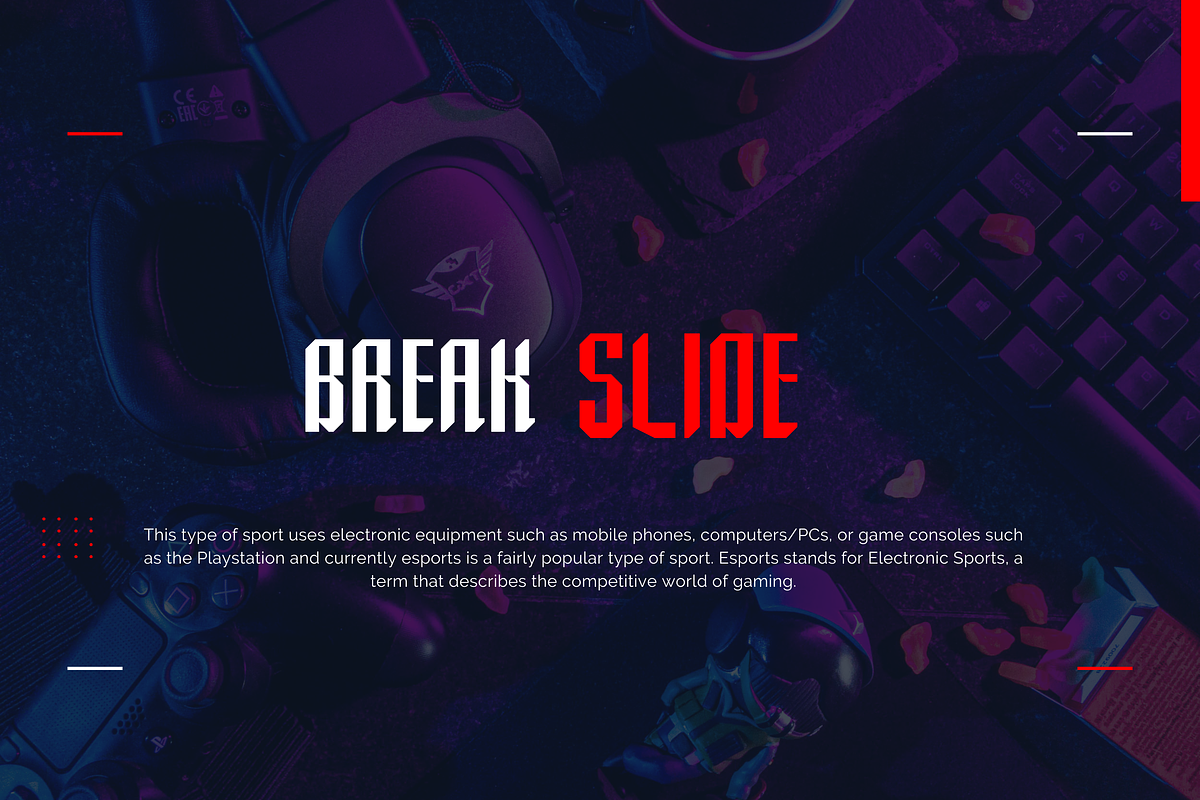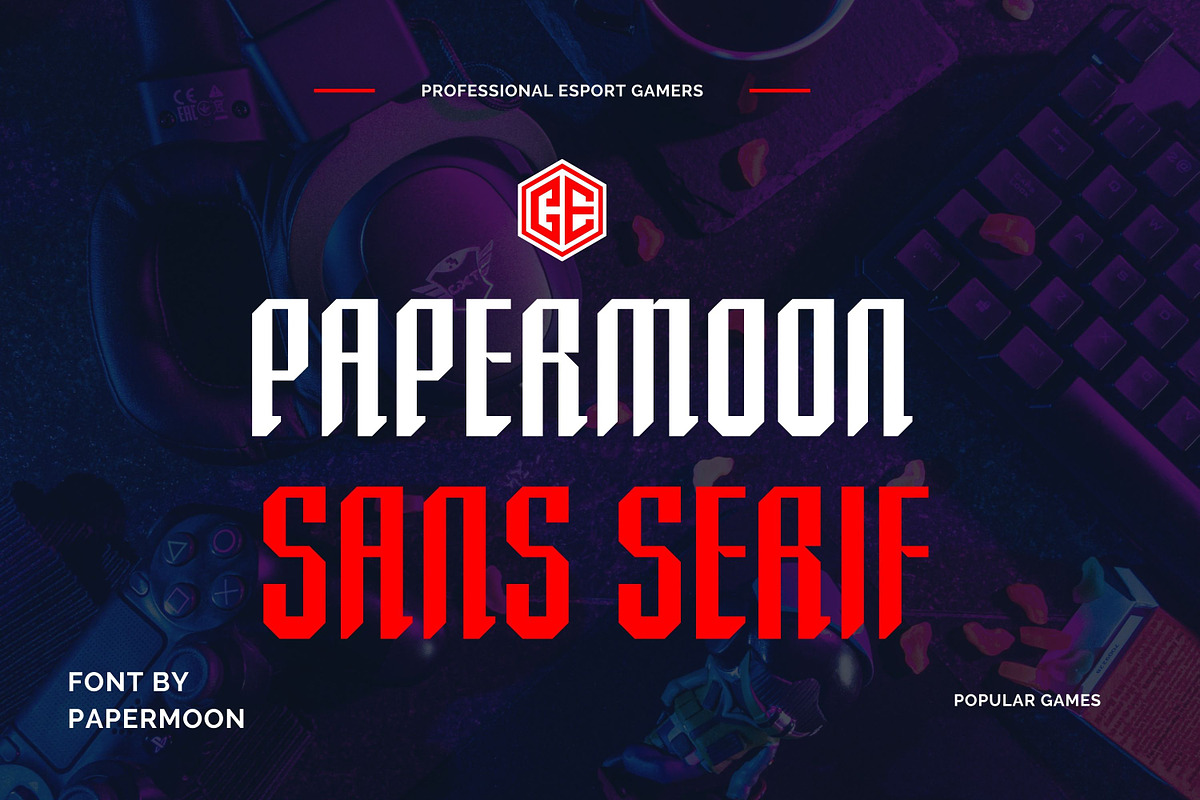
ESparta Gaming Font OpenType TTF OTF
ESPARTA GAMING FONT
ESparta Gaming Font delivers bold Regular and Italic styles optimized for eSports and gaming brand identities. This OpenType font includes TTF and OTF formats with multilingual character support and stylistic alternates for customizable designs.
- OpenType standard numerals and punctuations
- Multilingual accent characters
- Stylistic alternate glyphs
PERFECT FOR
- Gaming logos and branding
- eSports team identities
- Streaming overlays and graphics
- Gaming merchandise designs
- Tech and sports-themed projects